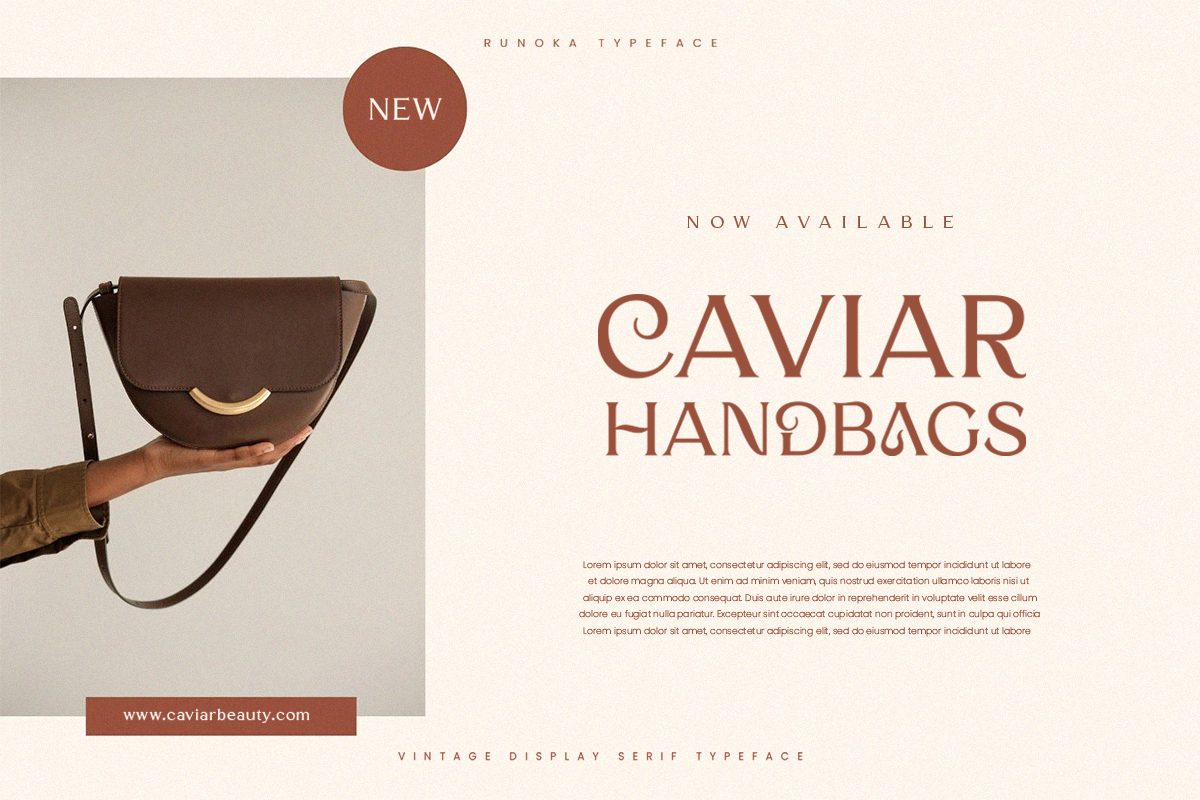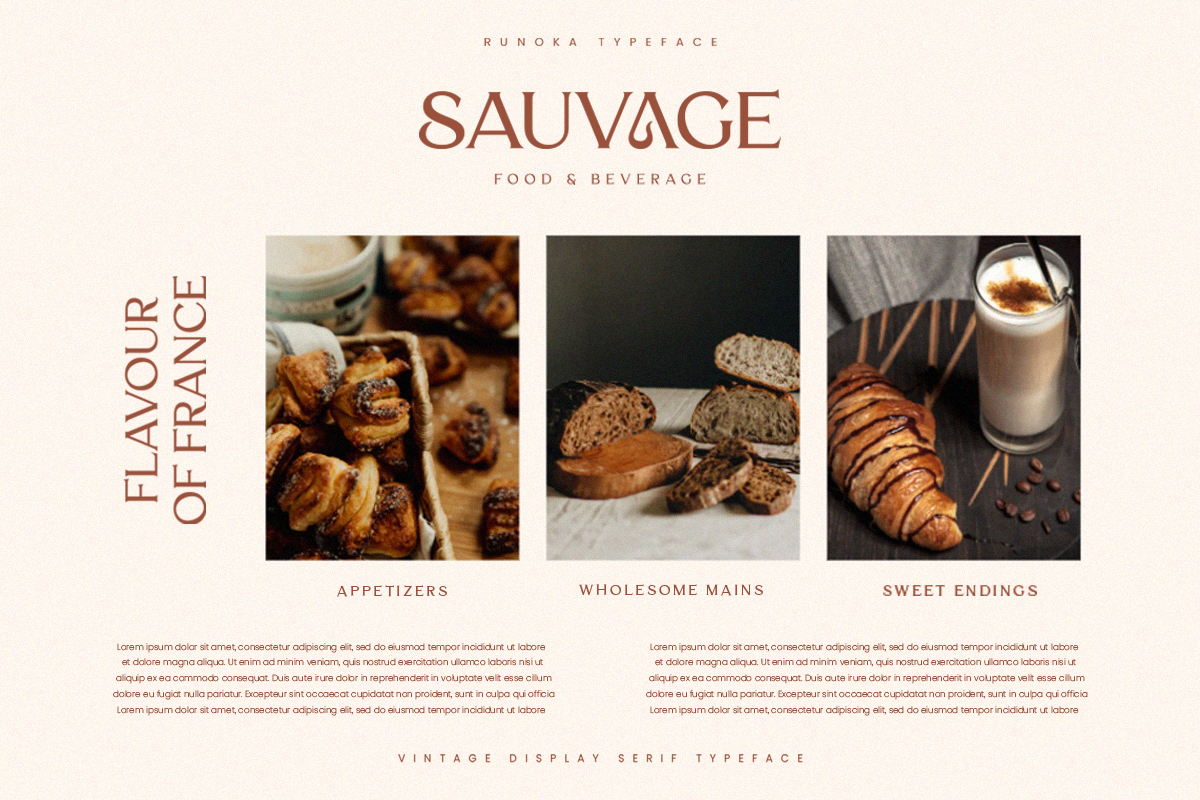
Runoka Serif Font
This Font Is Vintage Display Serif Fonts Inspired by Rich ligatures & alternates. This font perfect for branding, Headlines, Retro designs, logos, invitation, watermark and so much more.
Runoka font is a Royal Fonts and Princess Fonts